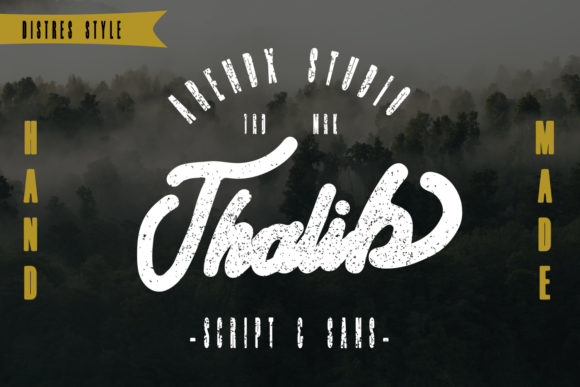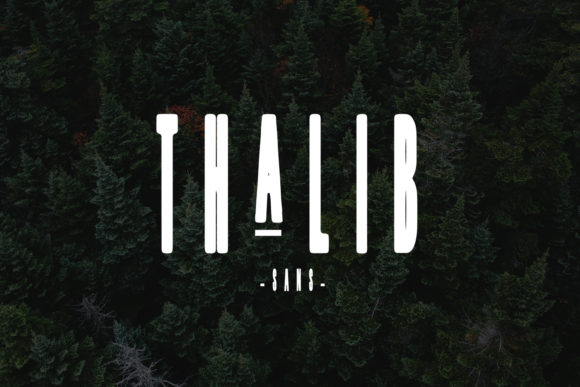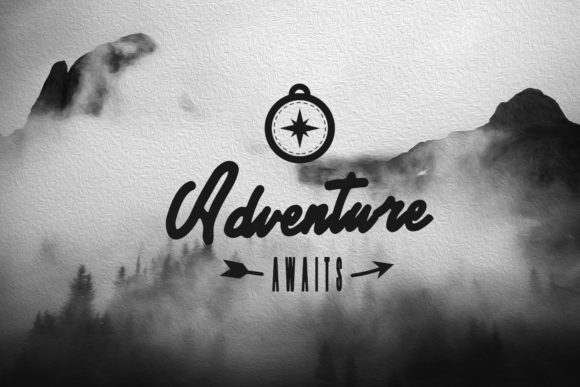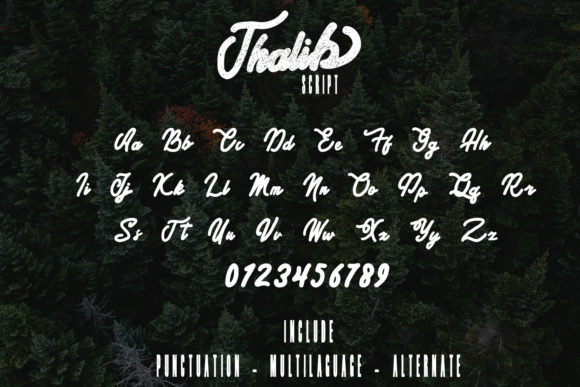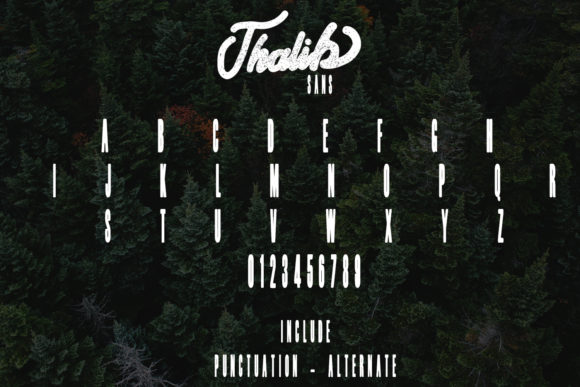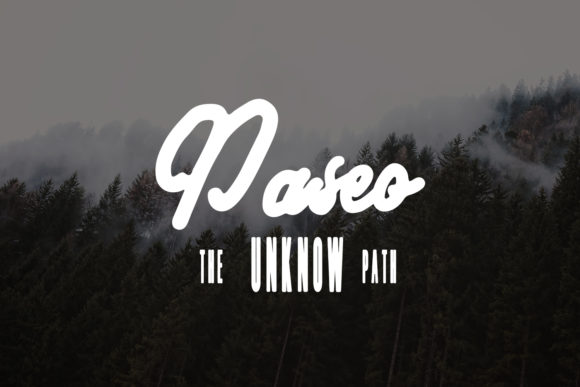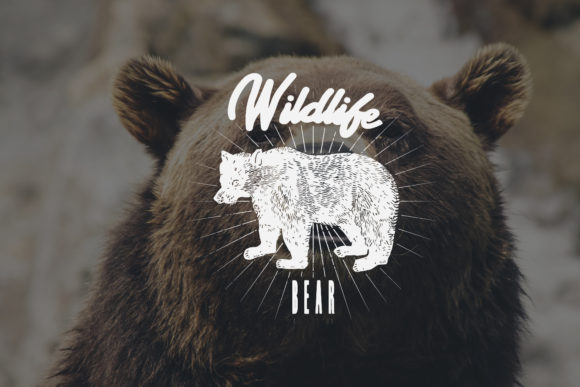
Thalib Font
About Thalib Font
Thalib is a unique font duo that provides a distinctly fresh & modern vibe. Great for a variety of contemporary design projects!